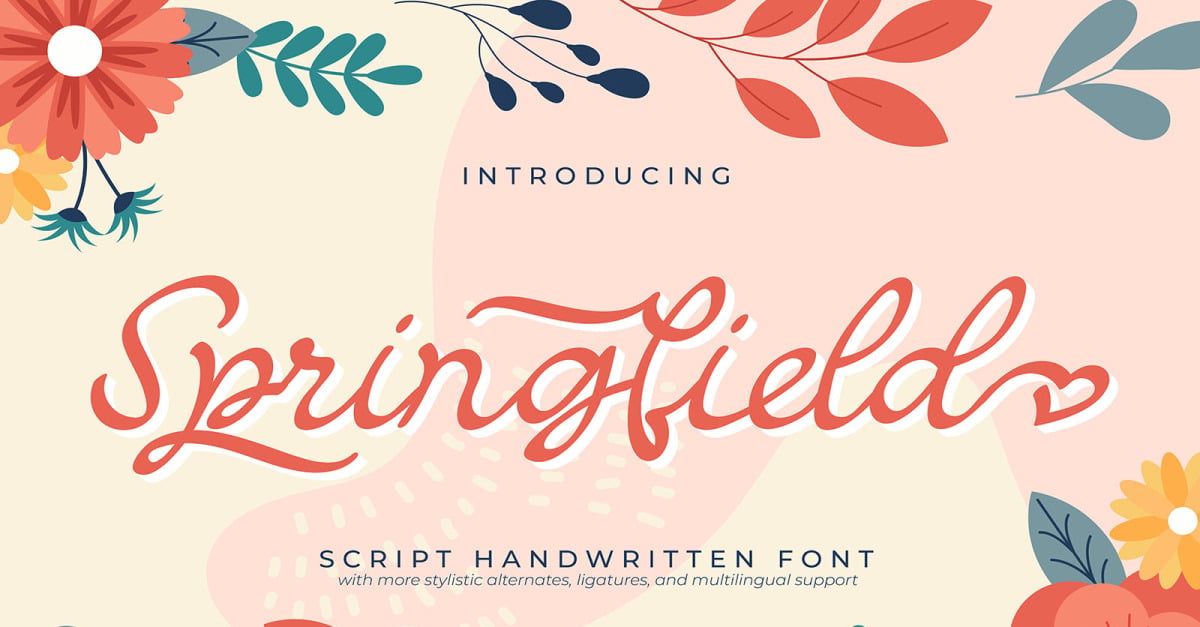
Springfield | Script Handwritten Font
**Springfield | Script Handwritten Font** with a calligraphy style, So beautiful on invitation like greeting cards, branding materials, business cards, quotes, posters, and more!